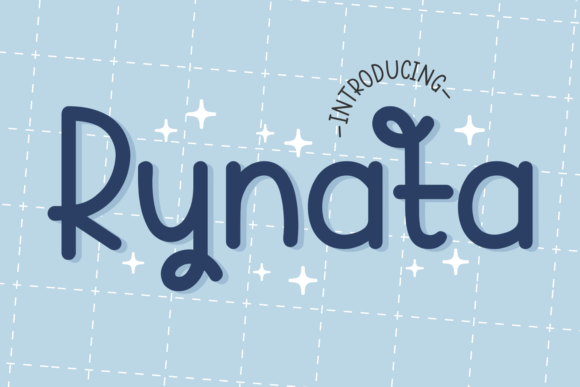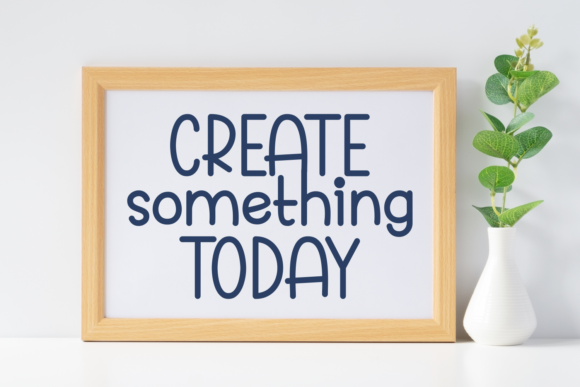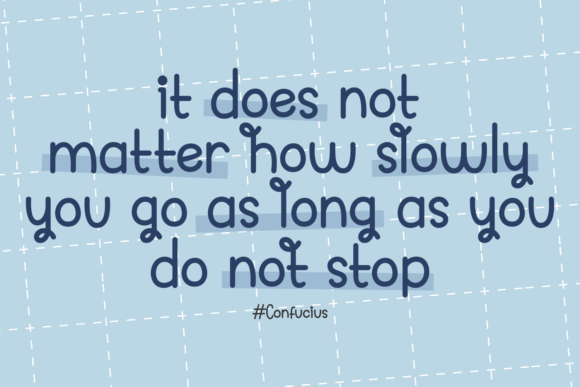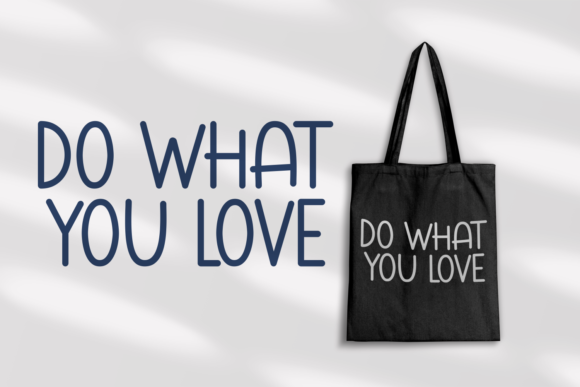
Rynata Font
RYNATA FONT SPECIMEN
Rynata is a simple slab serif font. This versatile and modern font is ideal for design, logo design, blog graphics, style quotes, wedding stationery, art prints, additional design, packaging, social media, magazines, fashion, creative branding, editorial design, and web designing.